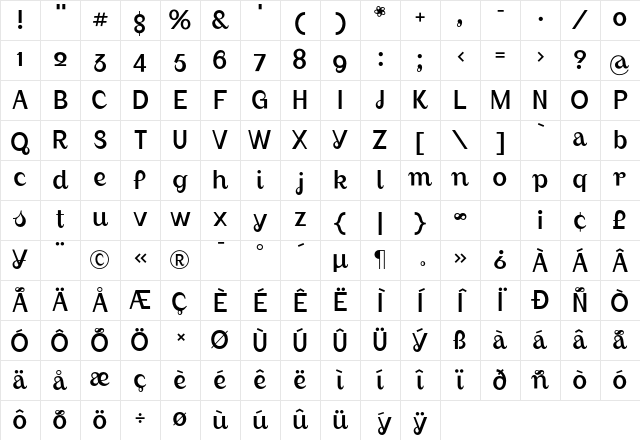
August Light
August Family
August Light
Design Context for August
August is a composed and adaptable typeface that performs quietly and consistently across a wide range of design contexts. Its slender proportions lend an understated elegance to any composition.